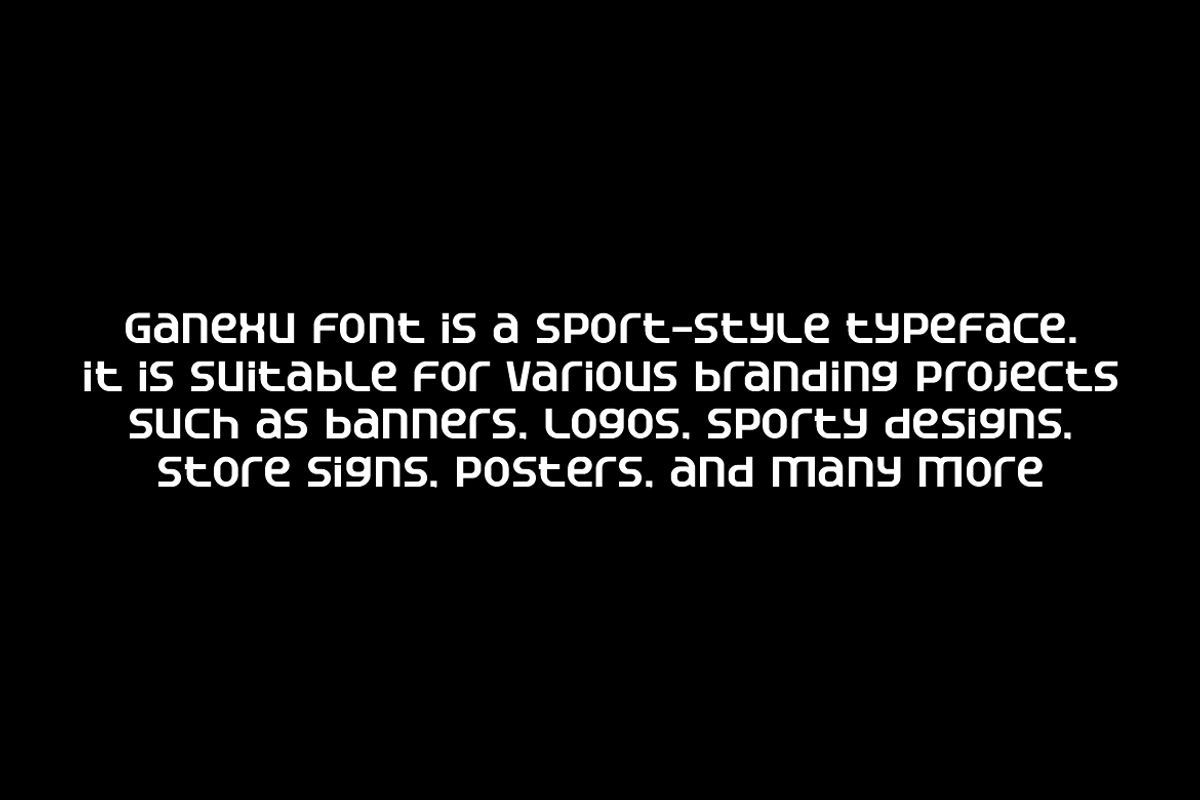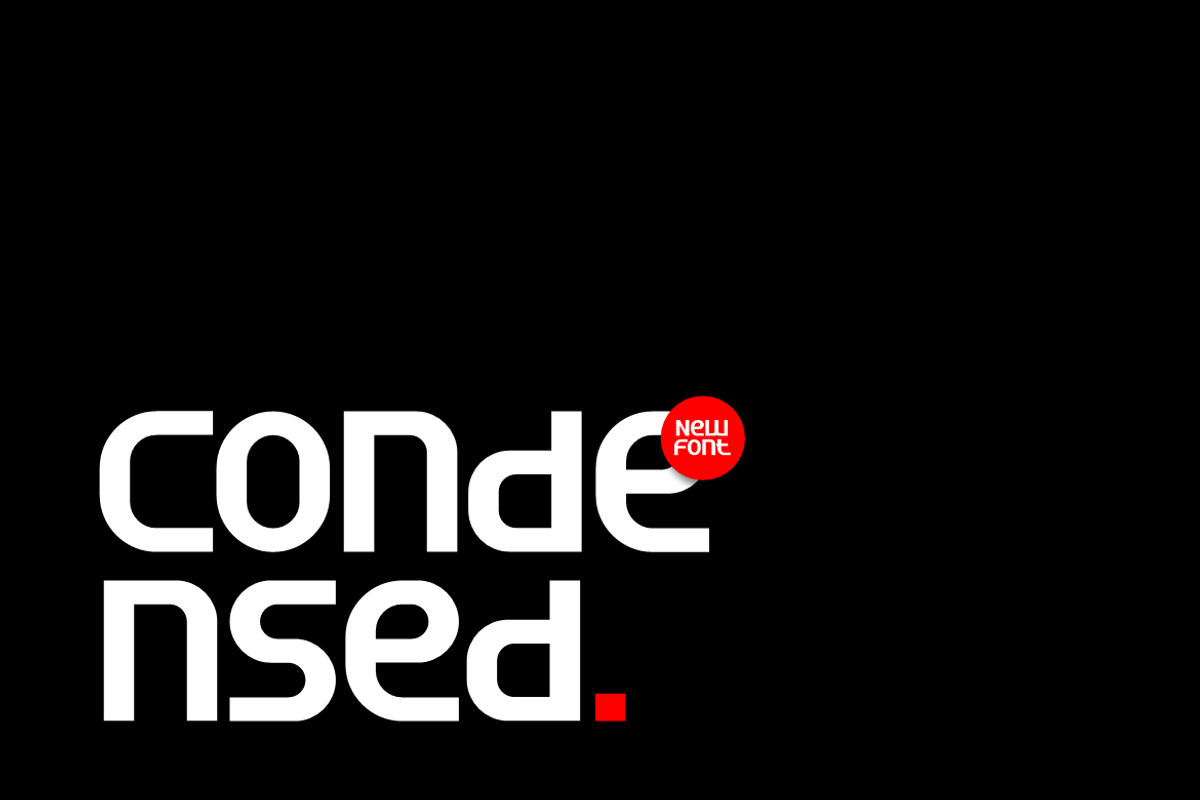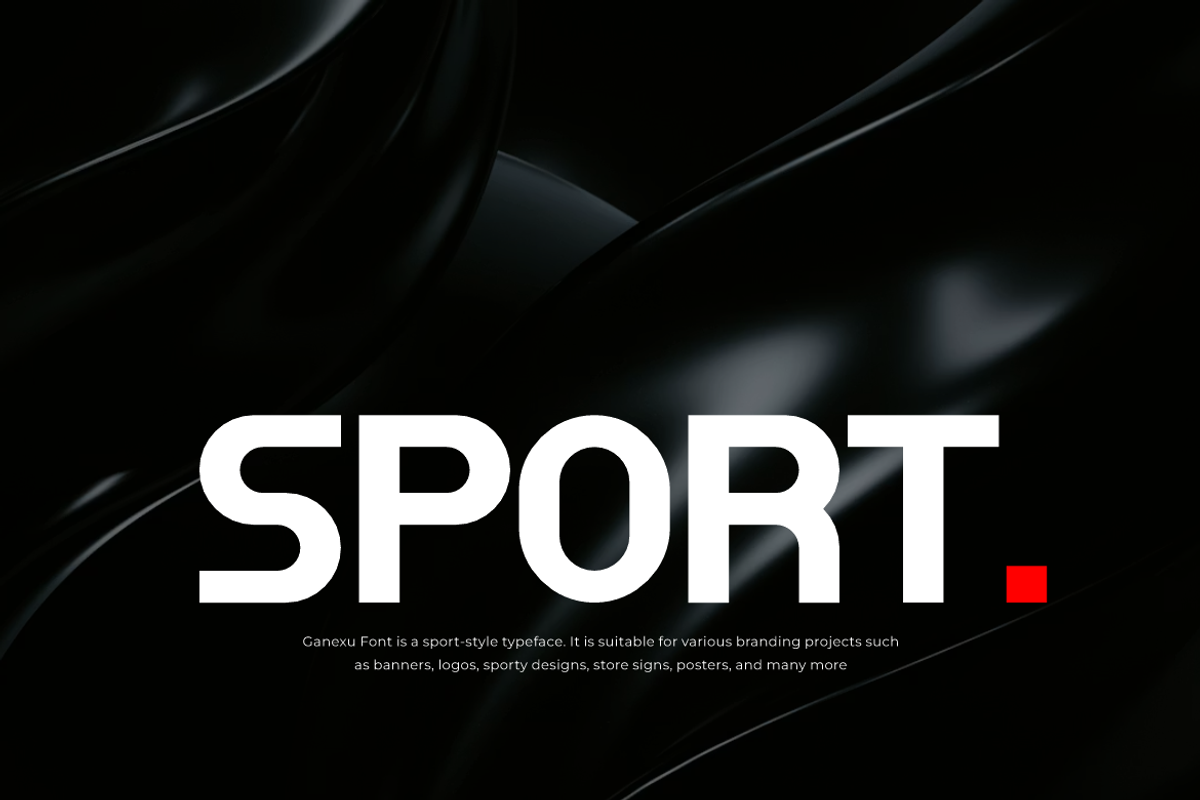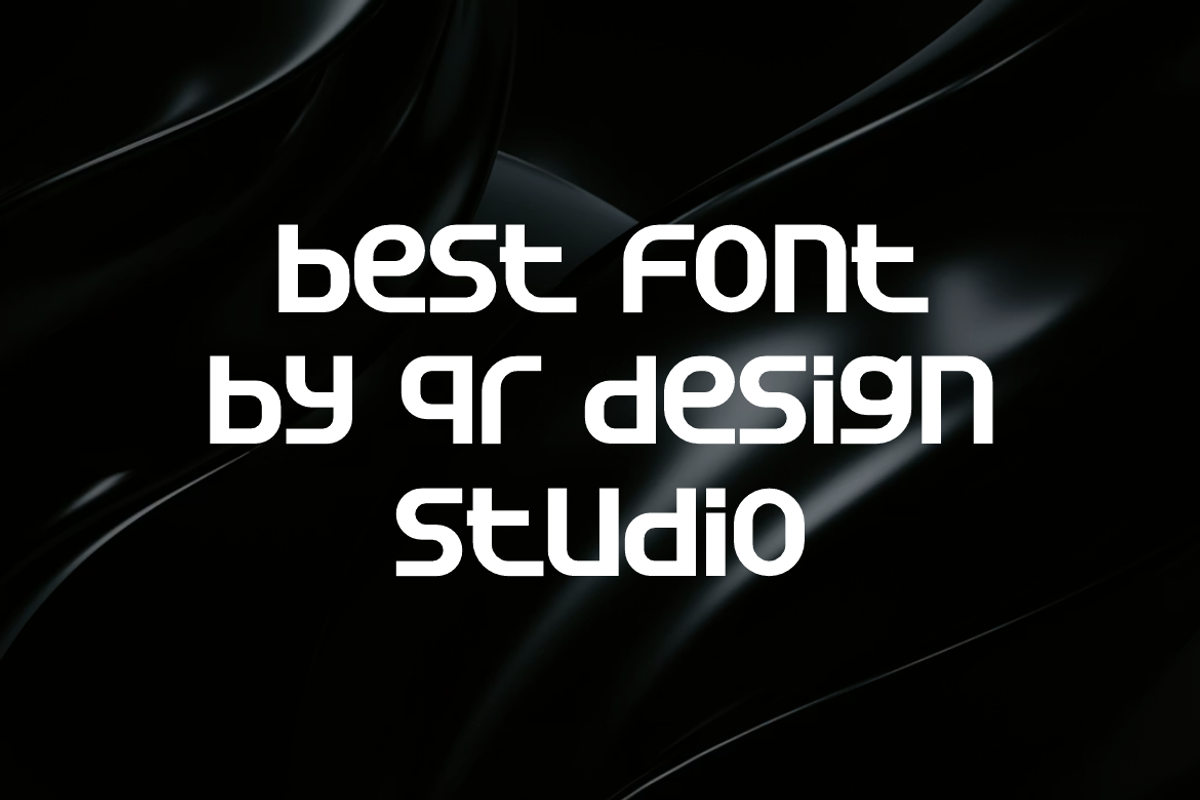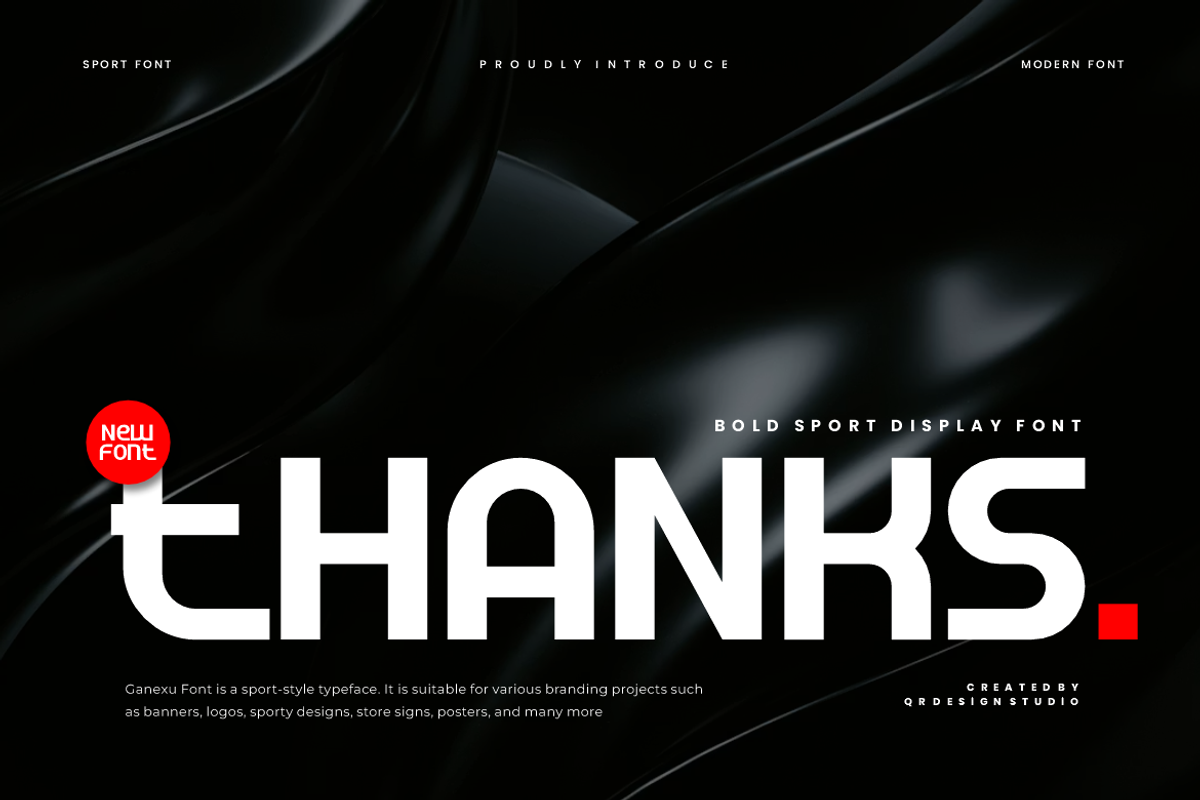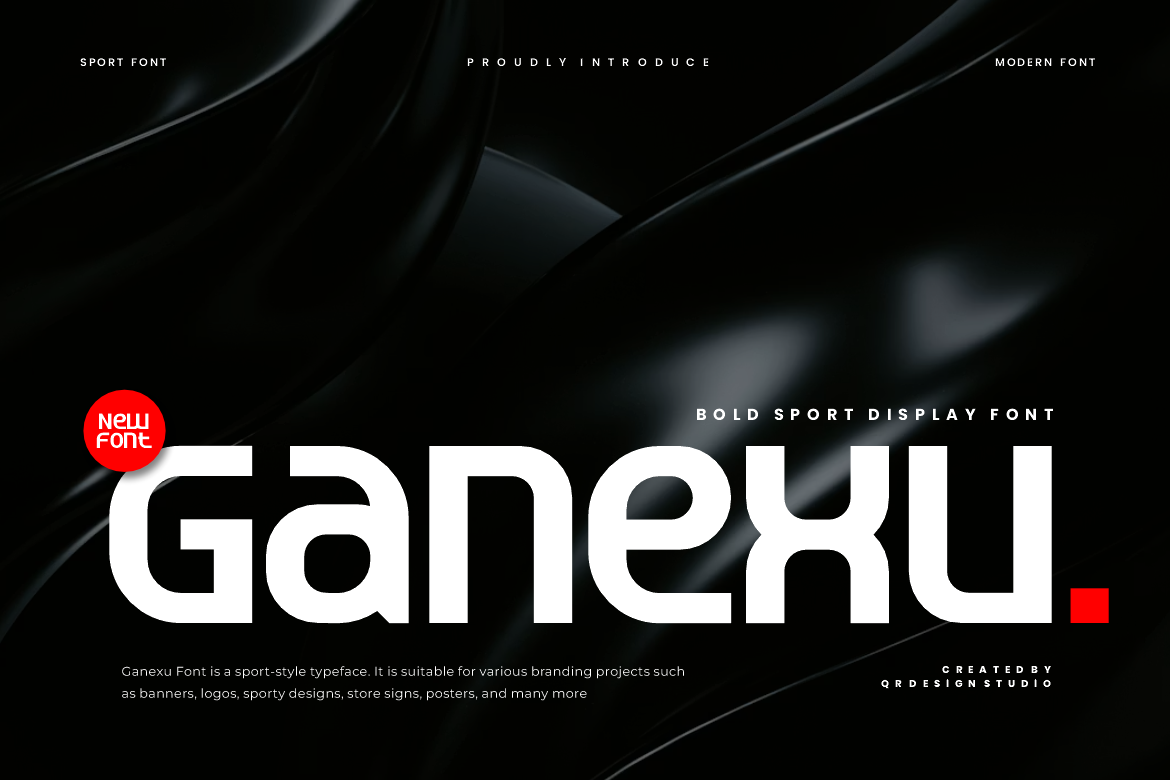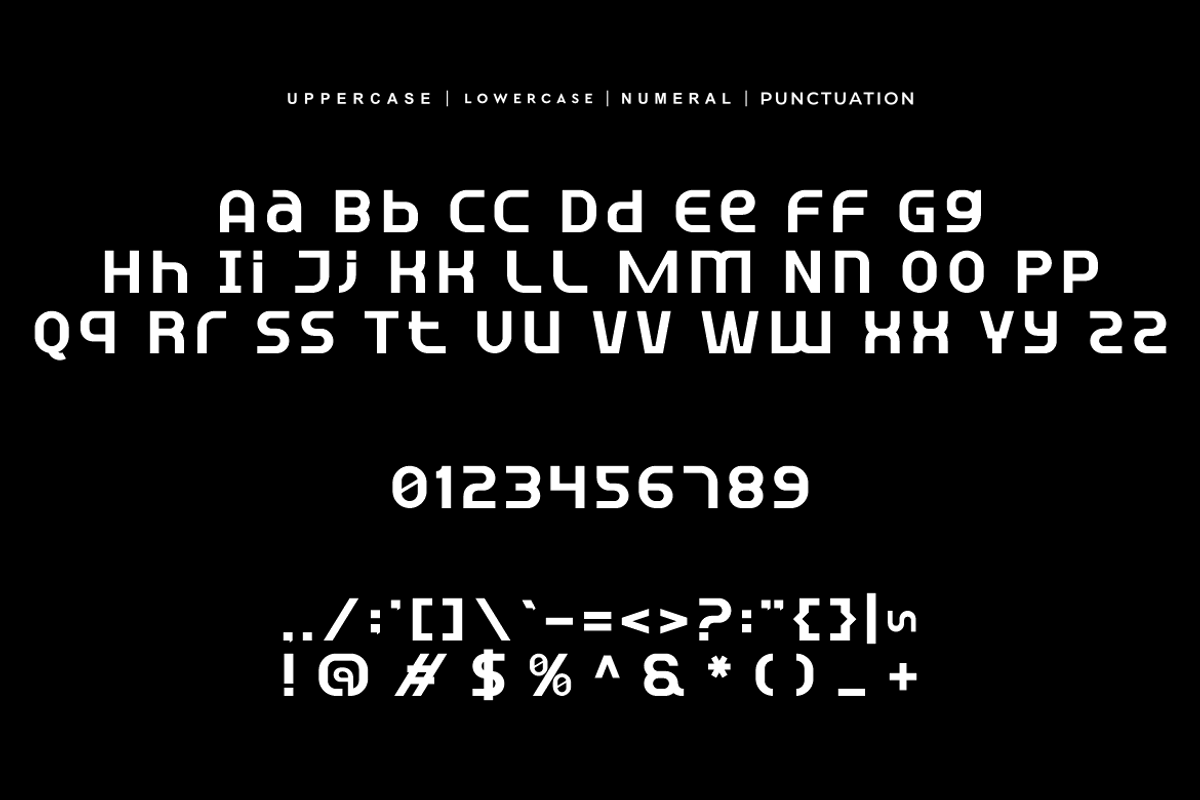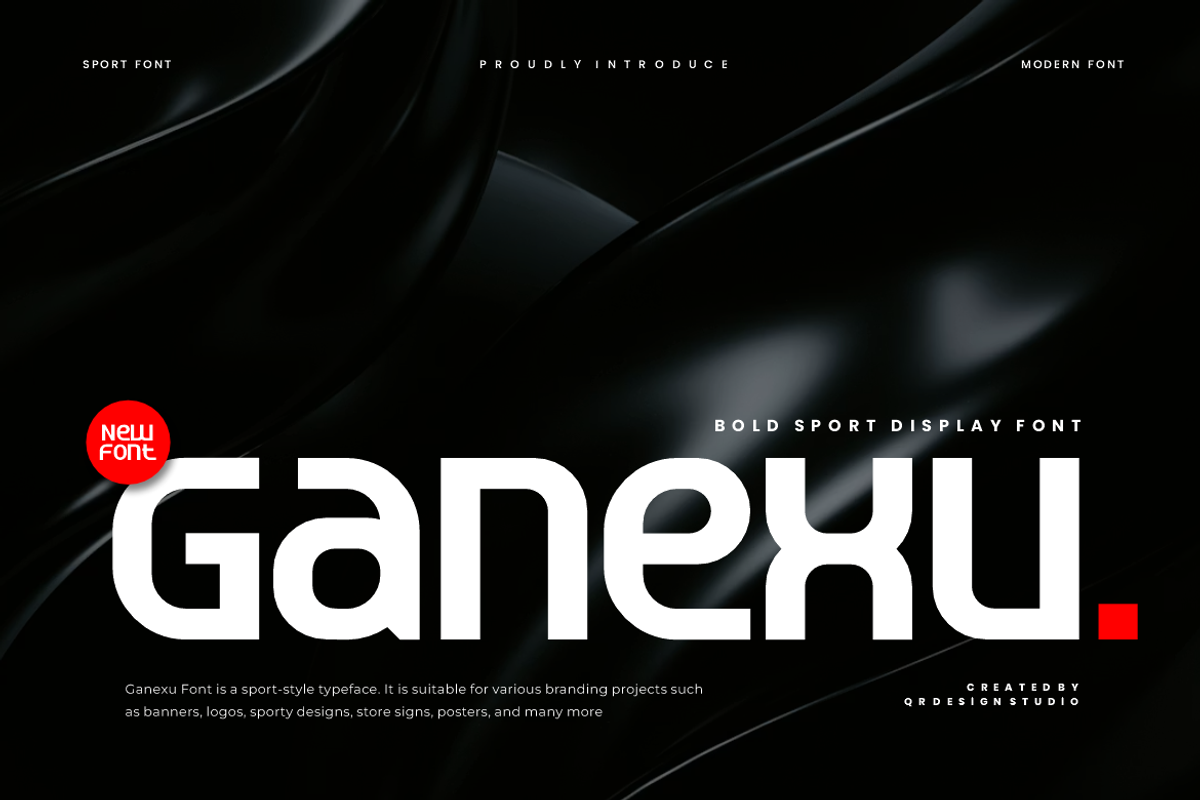
Ganexu - Modern Sport Font
Ganexu Font is a bold and authentic display typeface. It’s perfect for various branding projects such as logos, sports designs, and more. This font stands out beautifully in a wide range of contexts.